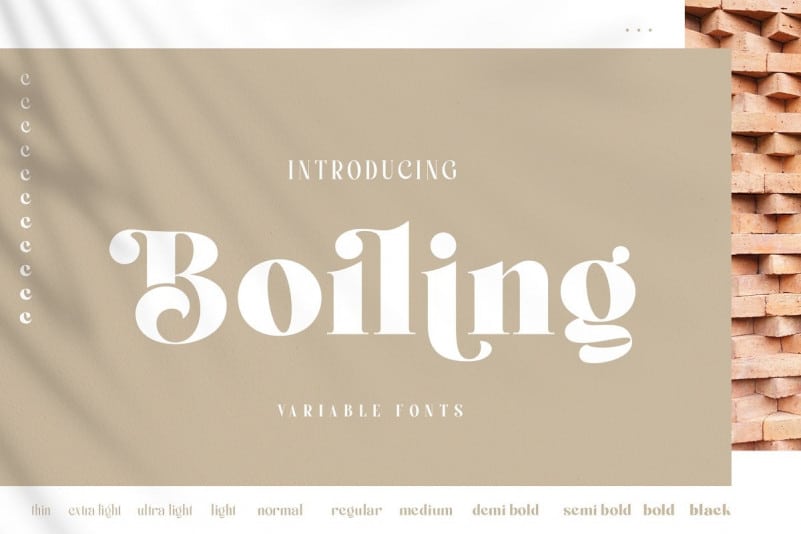
Boiling Sans Serif Font
Introducing Boiling Sans Serif Font is a bold, unique, luxurious, fashionable, modern and elegant serif with lots of ties and alternatives that will make your presentation more amazing and stand out!. This typeface is designed and shared by alit design.
This font looks elegant and is very cool to use to support your current design. Besides you get thick series, you also get many more font styles to thin styles. All letter characters are very easy to combine with modern minimalist design concepts. In addition to the alternative swash until (ss05), there are also many discretionary ligature choices that are unique and easy to read.
Boiling Sans Serif fonts have 11 families from Thin to Black all of which can be applied to design concepts that are at work or become your unique serif font collection. In the future, alternatives, swash, ligature or a new style of Boiling font will be developed. Besides this font already contains Unicode and PUA so it can be used in design or non-design applications.